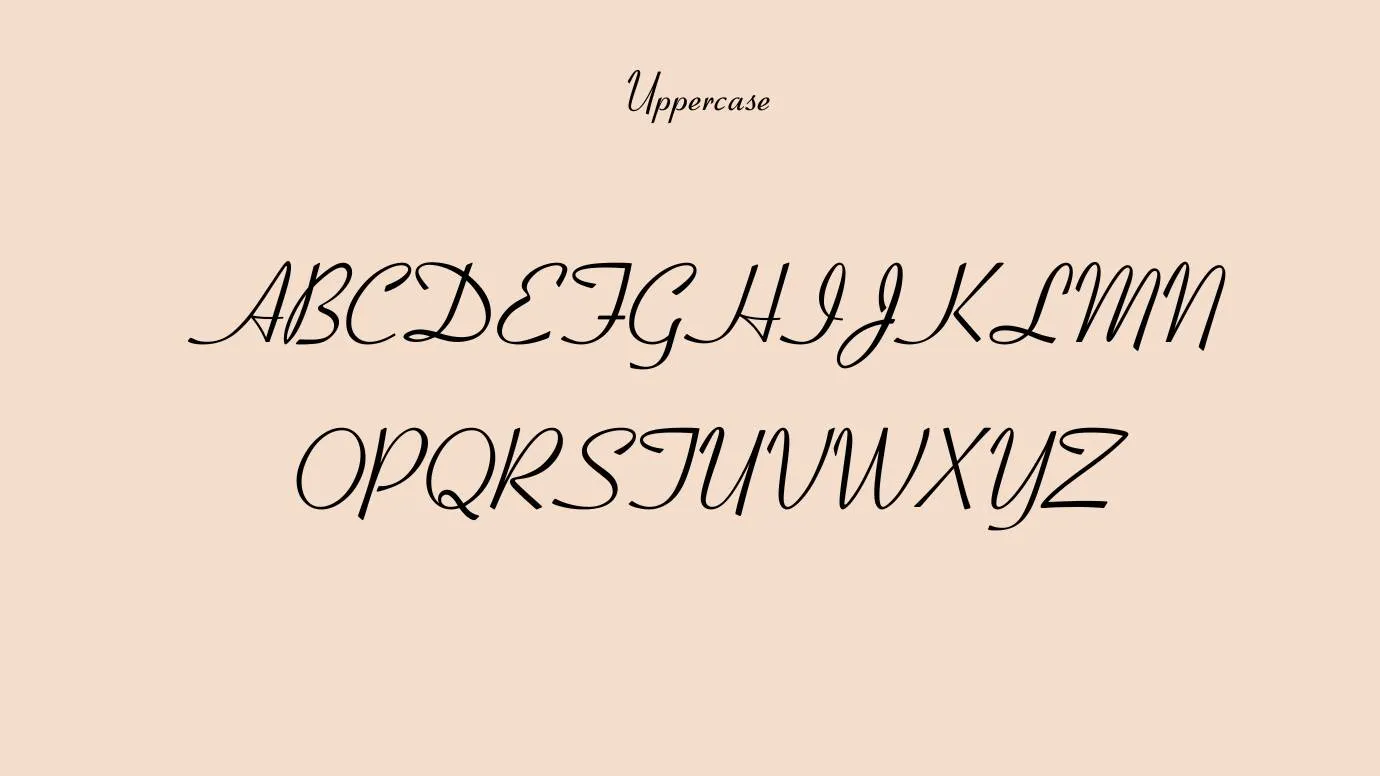
I Love Lucy Font is a very popular and modern typeface that falls in the category of script typeface. This classic texture is inspired by the American tv sitcom. This television sitcom debuted in the year 1951 for the first time. This typeface is famous as a logo font and is perfect for logo designs.
| Name | I Love Lucy Font |
| Type | Logo |
| Designer | R. Seeker Middleton |
| Date Released | 1937 |